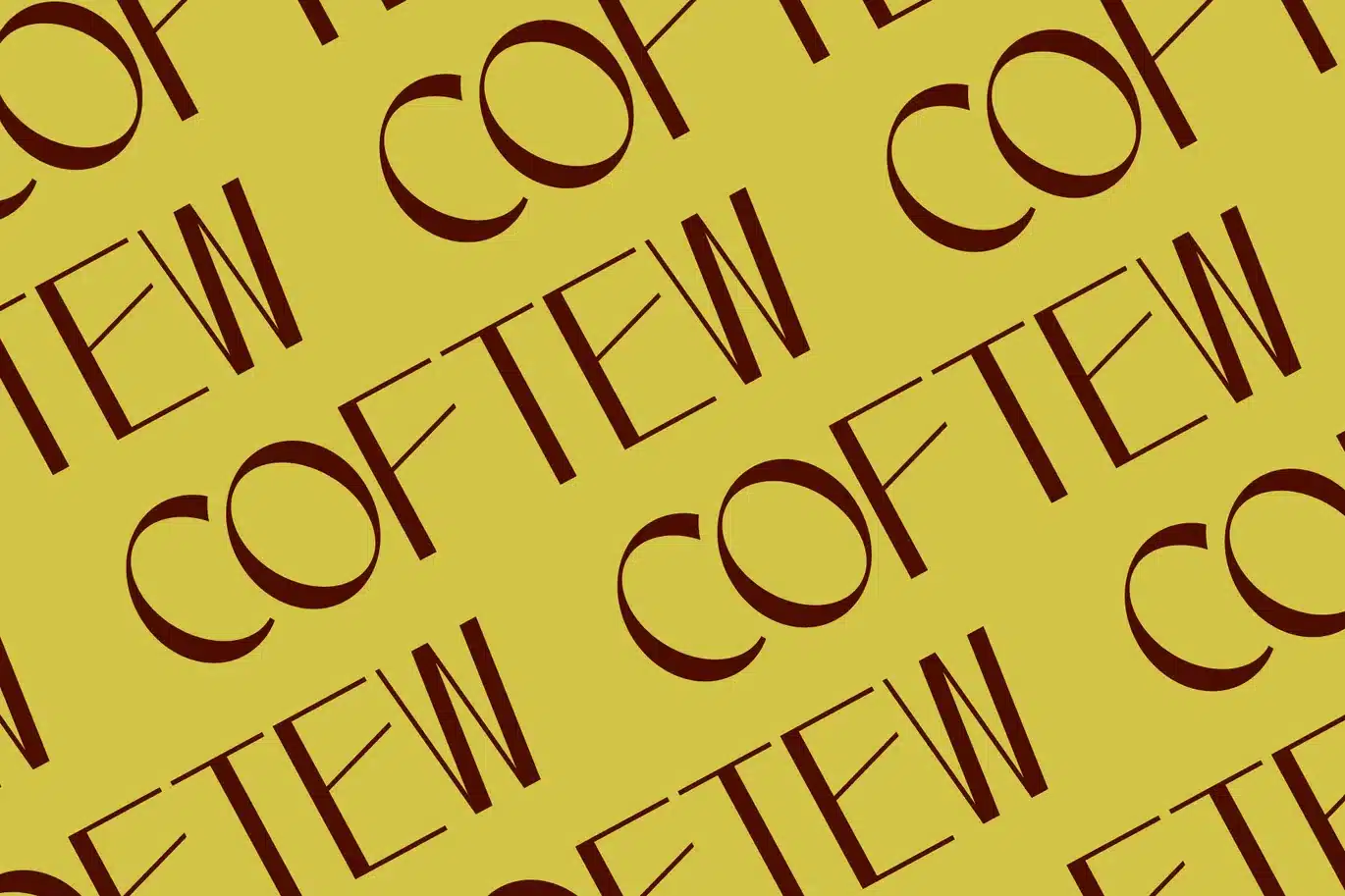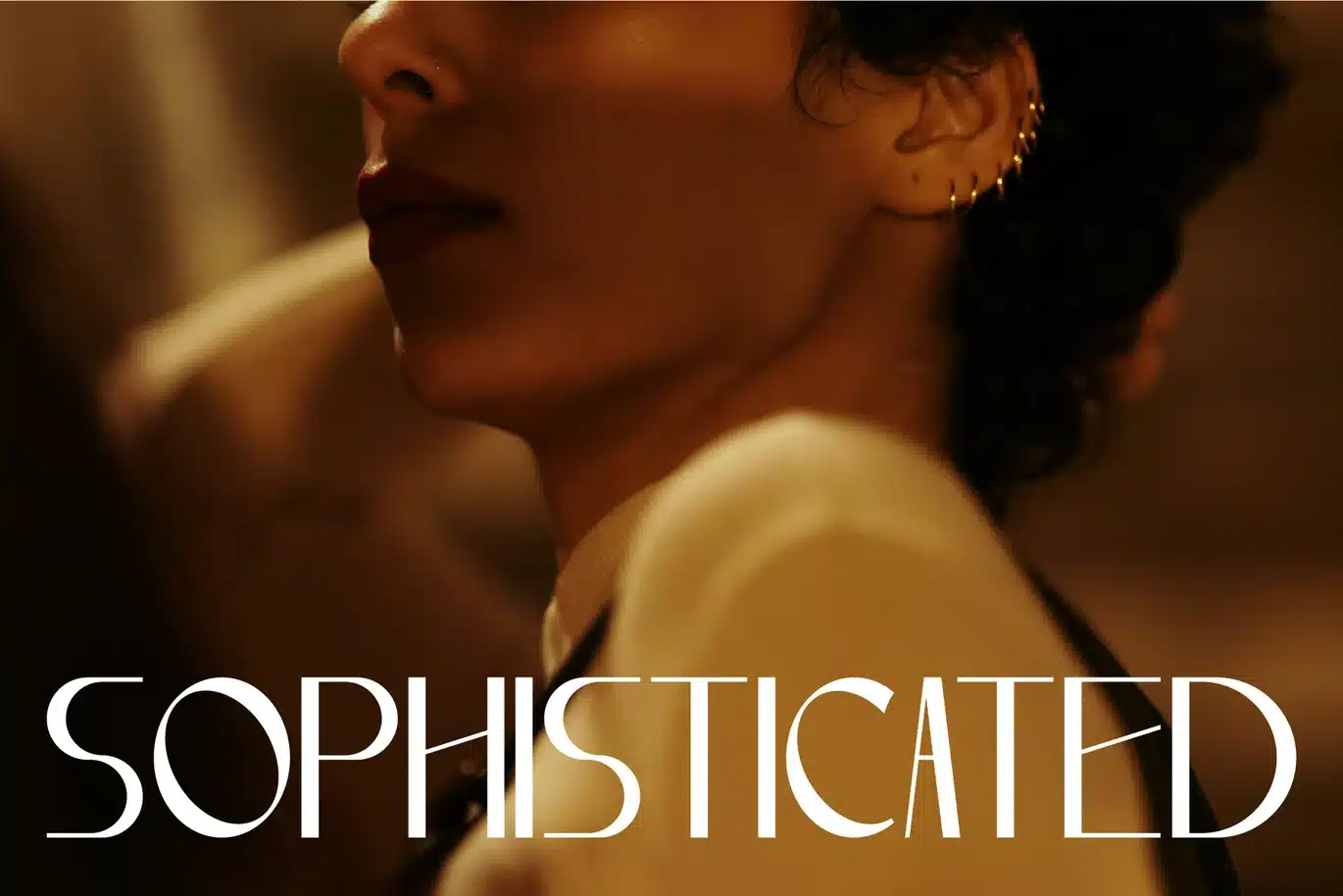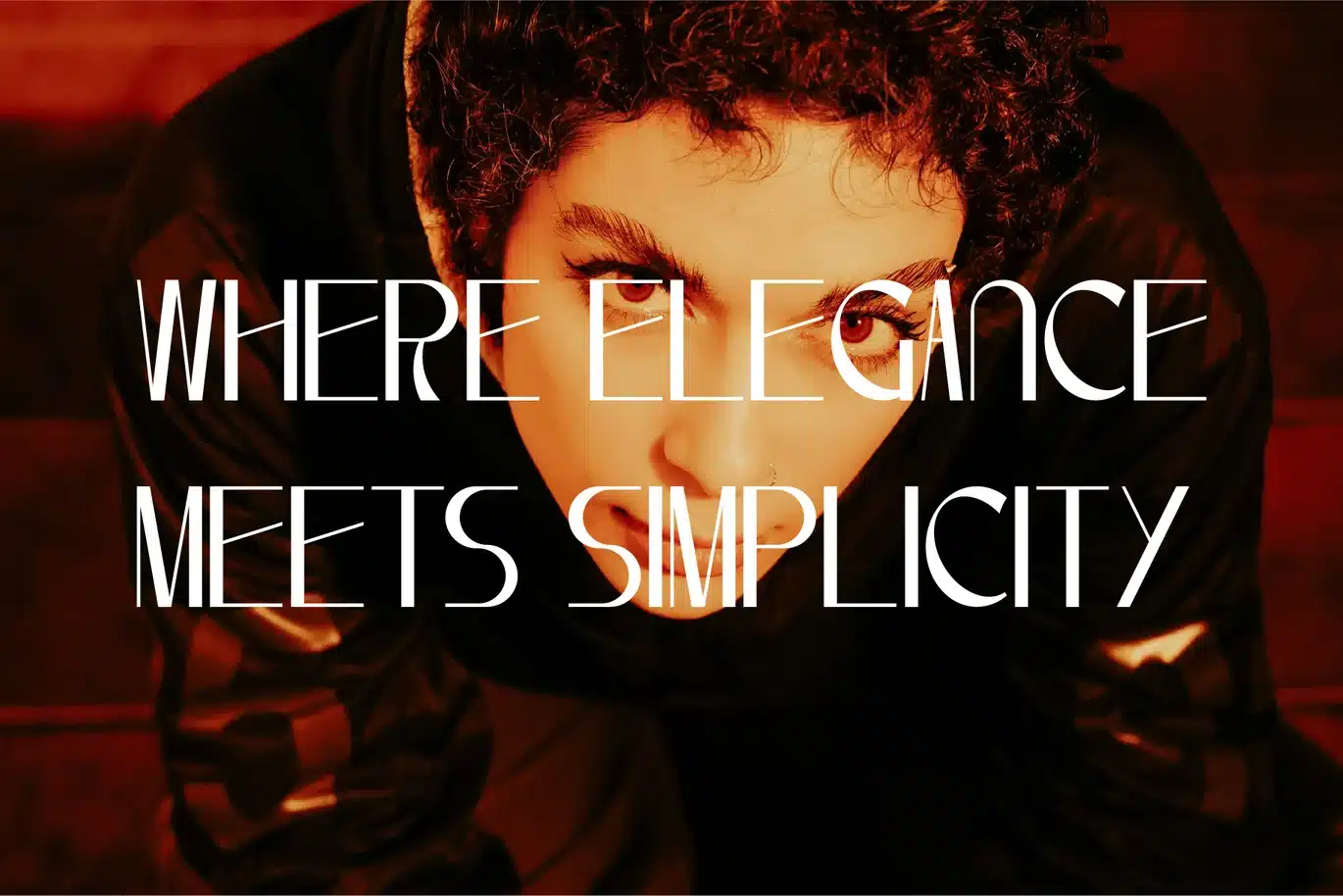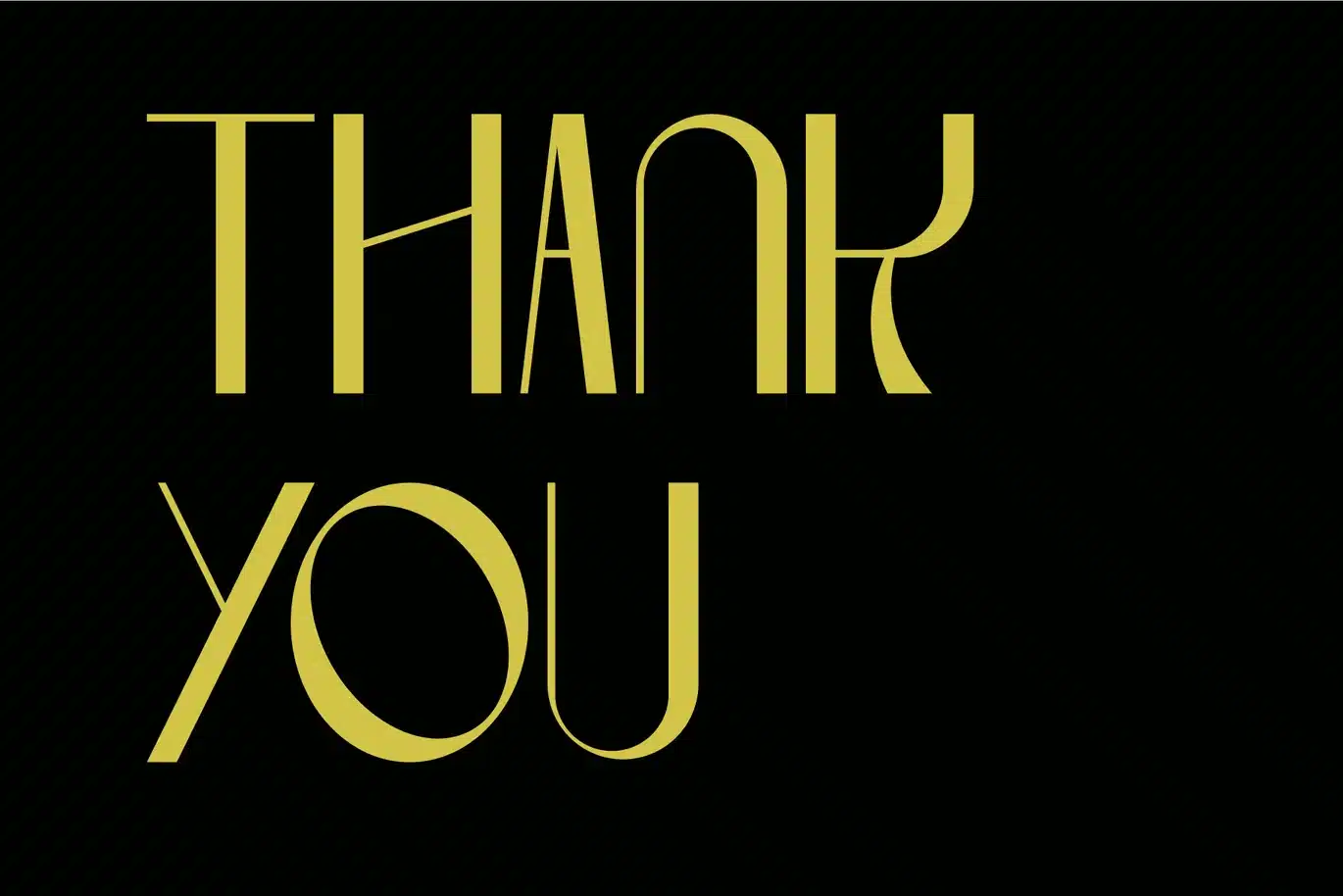
Coftew – Modern Sans Serif Font
Coftew is a modern and clean sans-serif font designed to offer a sleek and professional appearance. Its minimalist aesthetic makes it versatile for a variety of uses, including branding, web design, and print materials. The font features smooth lines and balanced proportions, ensuring readability while maintaining a contemporary style.